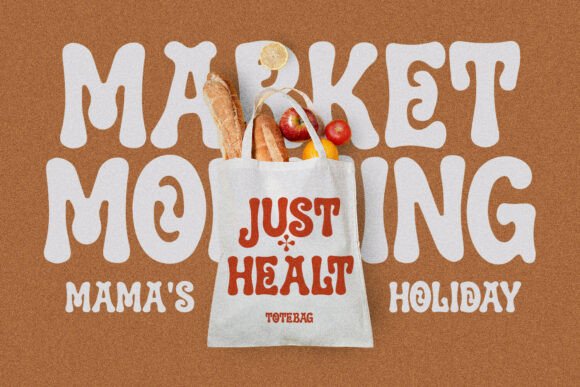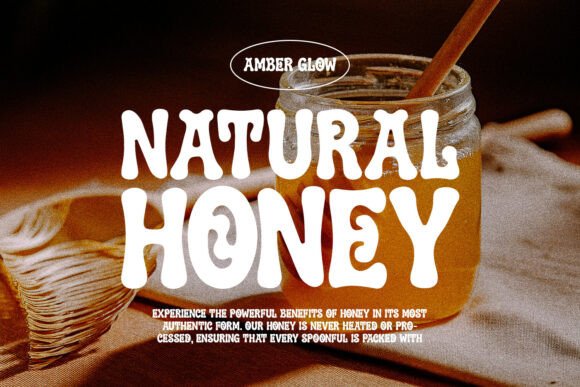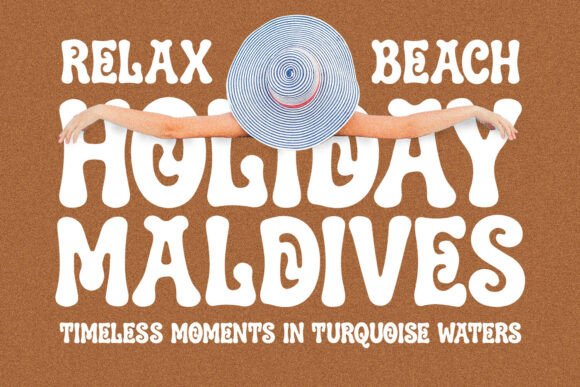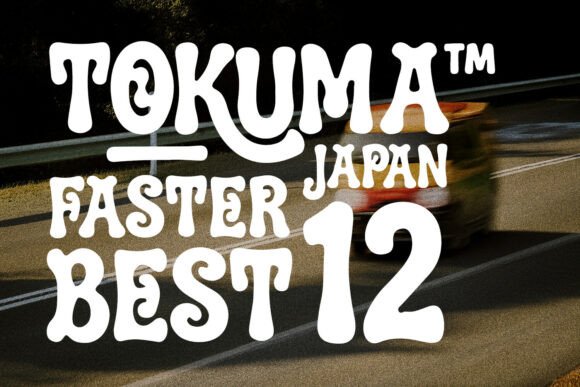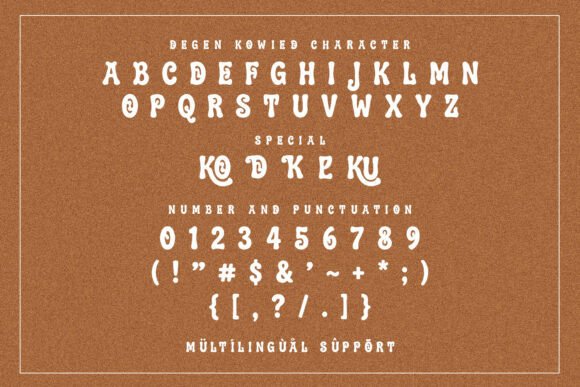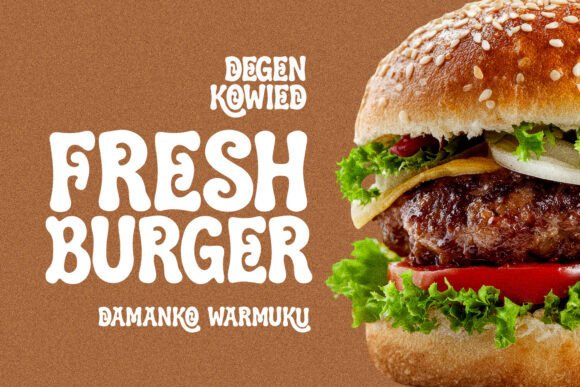
Introducing Degen Kowied Font: The Ultimate Display Font for Creative Projects
Are you looking for a font that can add a fun, vibrant, and energetic vibe to your creative projects? Look no further than Degen Kowied, a bold, heavy-weight display font that’s perfect for making a statement. With its thick, exaggerated letterforms, unique psychedelic curves, and inner swirls, this typeface captures a nostalgic yet modern retro aesthetic that’s sure to turn heads.
What Makes Degen Kowied Special?
Degen Kowied’s unique design features soft, rounded edges that give it an approachable and friendly appearance. This makes it highly effective for eye-catching titles and prominent headlines, as it can grab the attention of your audience without being too overwhelming. Whether you’re working on a food packaging design, cafe menu, product branding, poster, social media graphic, or book cover, Degen Kowied ensures your text stands out with maximum visual impact.
Key Features of Degen Kowied Font
- Bold and Heavy-Weight Design: Degen Kowied is a display font that’s designed to make a statement. Its thick, exaggerated letterforms ensure that your text is visible from a distance, making it perfect for headlines, titles, and promotional materials.
- Unique Psychedelic Curves and Inner Swirls: The font features unique psychedelic curves and inner swirls that add a touch of nostalgia and modernity to your designs. These distinctive elements help to create a retro aesthetic that’s both vintage and contemporary.
- Soft and Rounded Edges: The soft, rounded edges of Degen Kowied give it a friendly and approachable appearance, making it perfect for designs that require a more playful and creative vibe.
- Highly Versatile: Degen Kowied is a highly versatile font that can be used for a wide range of creative projects, from food packaging and cafe menus to product branding, posters, social media graphics, and book covers.
Degen Kowied is a font that’s designed to help you create stunning creative projects that stand out from the crowd. Here are some of the ways you can use this amazing font:
- Food Packaging: Add a fun and playful touch to your food packaging designs with Degen Kowied. Its bold and colorful design ensures that your products stand out on store shelves.
- Cafe Menus: Create eye-catching cafe menus that showcase your brand’s personality with Degen Kowied. Its unique design elements add a touch of whimsy and creativity to your menu designs.
- Product Branding: Use Degen Kowied to create bold and memorable product branding that reflects your brand’s values and personality.
- Posters: Create stunning posters that grab attention with Degen Kowied. Its bold and colorful design ensures that your posters stand out in any setting.
- Social Media Graphics: Add a touch of creativity and playfulness to your social media graphics with Degen Kowied. Its unique design elements ensure that your graphics stand out in crowded social media feeds.
- Book Covers: Use Degen Kowied to create eye-catching book covers that reflect the tone and personality of your book. Its bold and colorful design ensures that your book stands out on bookshelves.
In conclusion, Degen Kowied is an amazing display font that’s perfect for creative projects that require a fun, vibrant, and energetic vibe. Its unique design elements, including thick, exaggerated letterforms, unique psychedelic curves, and inner swirls, ensure that your text stands out with maximum visual impact. Whether you’re a designer, craftsperson, or DIY enthusiast, Degen Kowied is a font that’s sure to inspire your creativity and help you create stunning designs that turn heads.